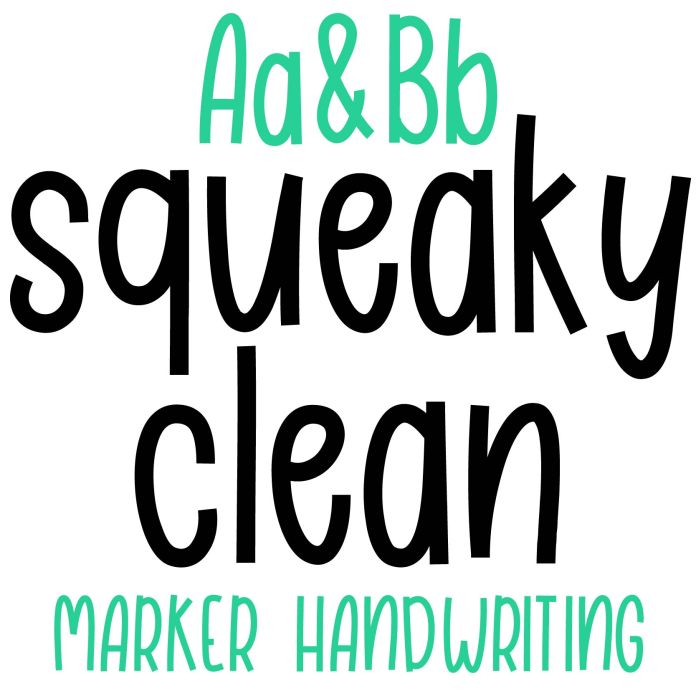
Squeaky clean marker handwriting font
Cute marker handwriting font fun for crafts, planners, notes, monogram, holiday, birthday, cards, signs, and personalization projects.